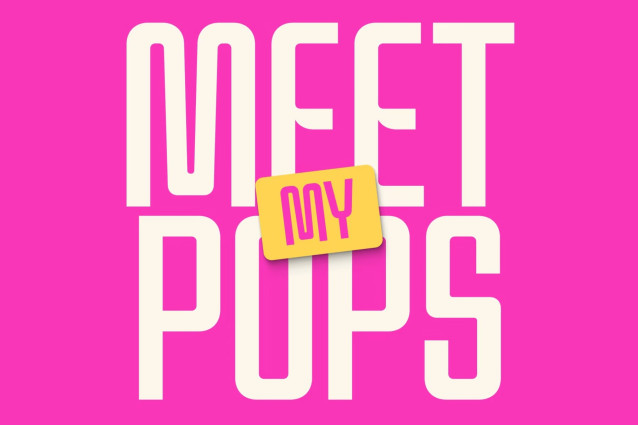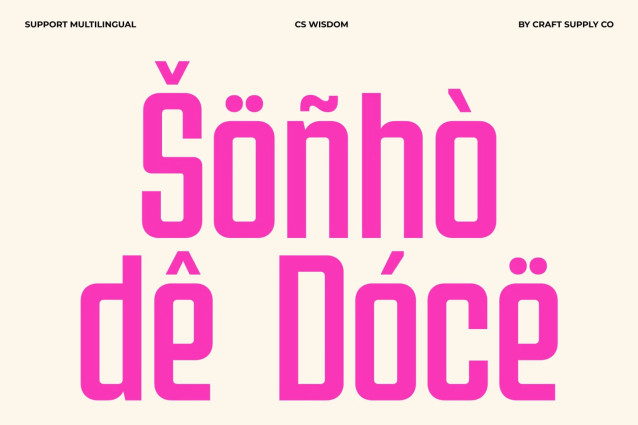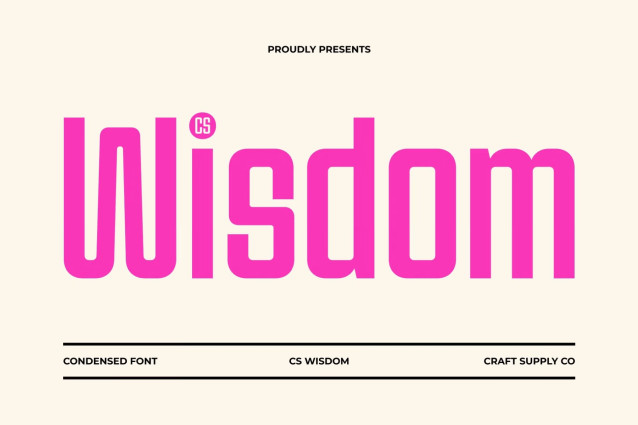
CS Wisdom – Condensed Font
CS Wisdom – Condensed Sans Serif with Clean Masculine Strength
Condensed Sans Serif with Modern Precision
This is a compact and modern condensed sans serif font designed to project strength, clarity, and confidence. With its clean structure and masculine character, this typeface delivers bold visual impact while maintaining a refined and professional tone. It is crafted for designers who need typography that communicates authority and modern sophistication.
Built for Tight Spaces and Clear Messaging
The condensed proportions allow more content to fit into limited layouts without sacrificing readability. Each letterform is carefully engineered to appear tall, balanced, and highly legible, making it ideal for headlines, posters, and branding where space efficiency is essential. This efficient structure ensures your message remains strong and visible in any composition.